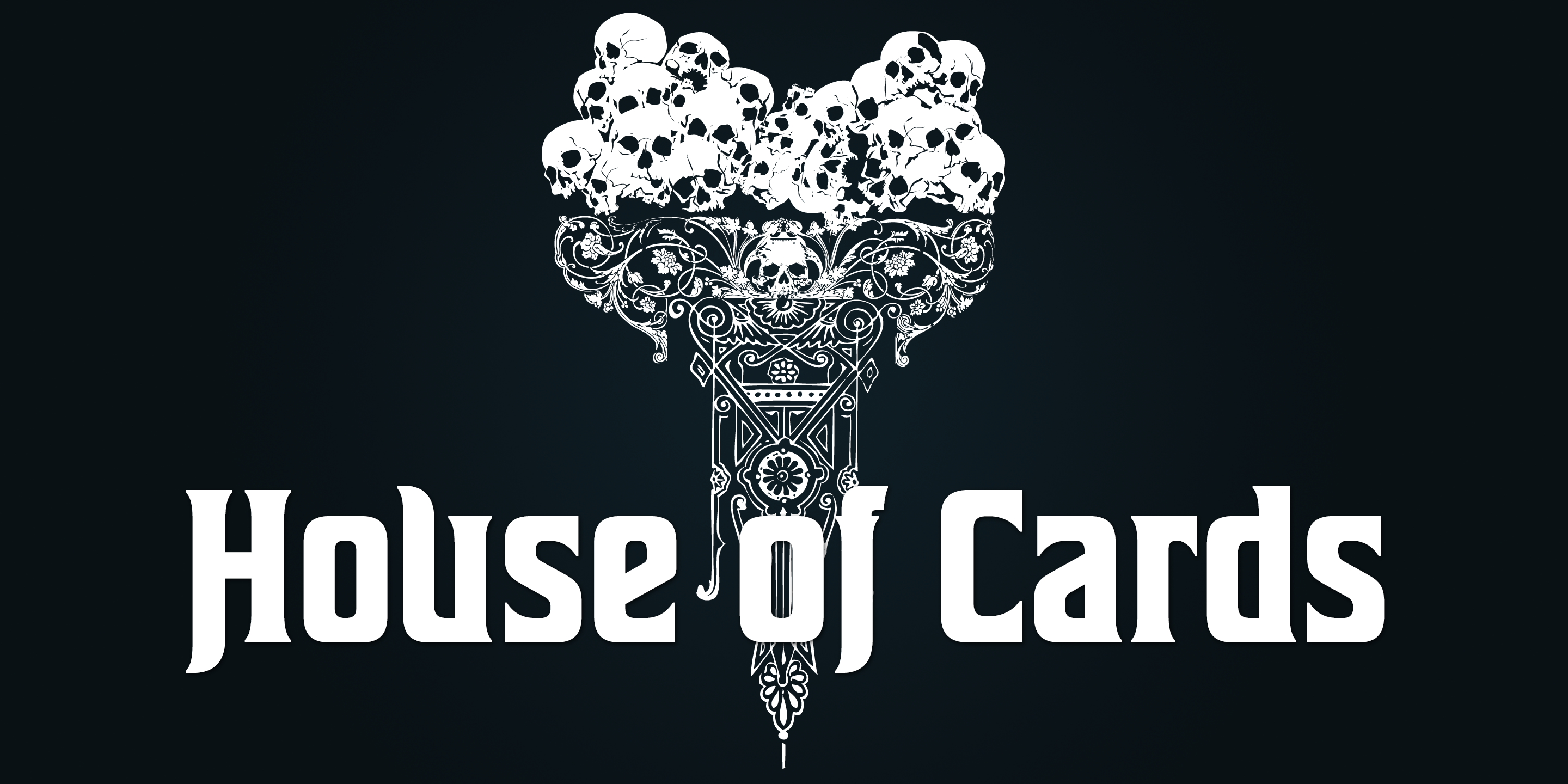
The House Of Cards Font is perfect for casino branding, poker tournament posters, gambling establishment signage, playing card designs, magic show materials, Las Vegas entertainment graphics, card game packaging, mystery novel covers, thriller movie titles, and sophisticated gaming applications.
What makes the House Of Cards Font exciting is its masterful ability to capture the high-stakes tension and elegant sophistication of the gaming world through precisely crafted letterforms that embody risk, strategy, and calculated precision. This intriguing typeface features sharp angles, strategic proportions, and mysterious character variations that instantly evoke the thrilling atmosphere of high-roller casinos where fortunes are won and lost with the turn of a single card. Each letter appears to hold secrets and possibilities.
The House Of Cards Font family includes regular, bold, italic, and stacked versions, along with card suit symbols, gambling ornaments, and casino-inspired decorative elements that enhance its gaming appeal across various entertainment design applications.
Whether you're creating casino brand identities or designing gaming entertainment materials, House Of Cards Font Free Download delivers maximum impact and authentic gambling sophistication. Its strategically crafted letterforms ensure excellent readability while maintaining that essential high-stakes character that speaks to risk-takers and gaming enthusiasts. The font's special features include contextual alternates, card-inspired ligatures, and gaming variations that automatically create authentic casino aesthetics. Casino designers and gaming brand creators consistently choose this font for projects requiring genuine gambling authenticity and sophisticated entertainment appeal. The House Of Cards Font transforms ordinary text into high-stakes declarations of gaming excitement, making it an essential ace in any designer's entertainment typography deck.